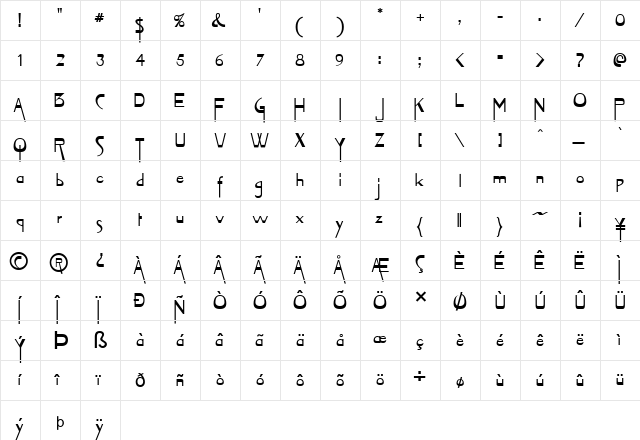
FZ JAZZY 45 Normal
Design Context for FZ JAZZY 45 Typeface
FZ JAZZY 45 is a composed and adaptable typeface that performs quietly and consistently across a wide range of design contexts.